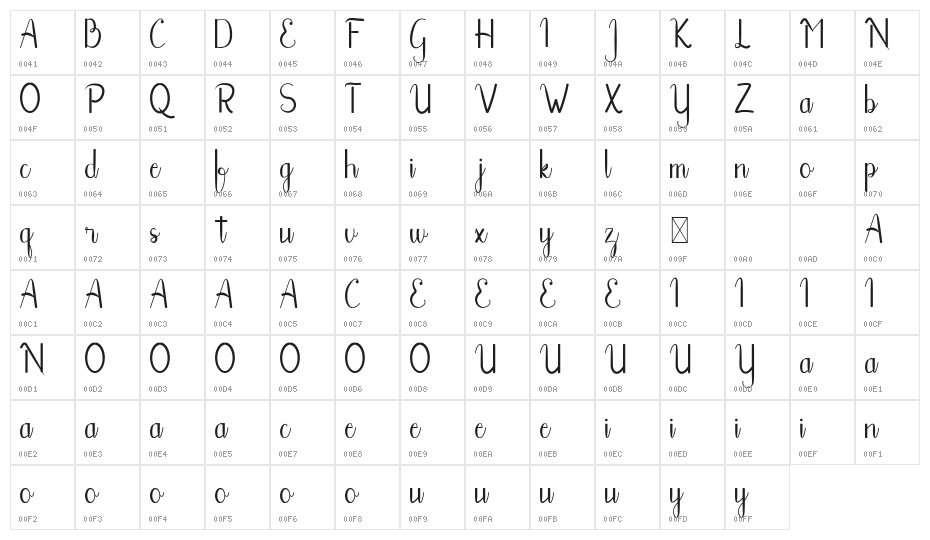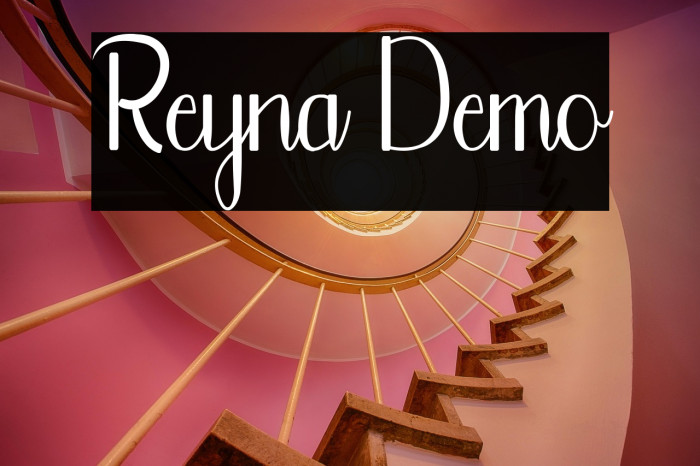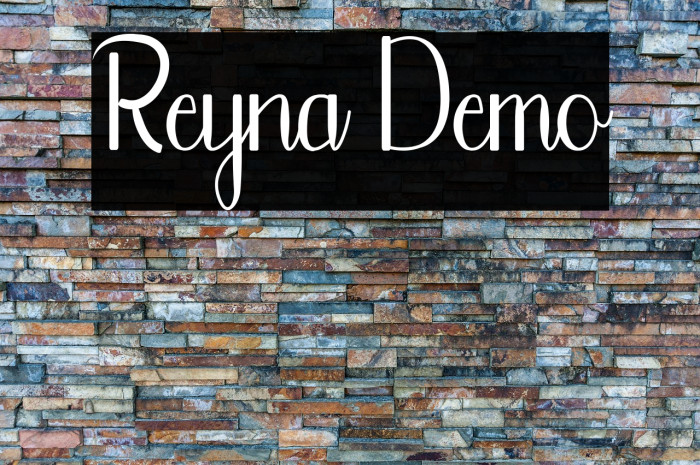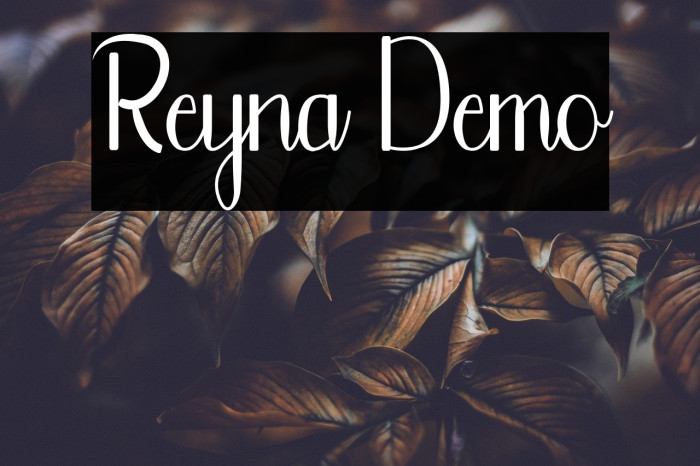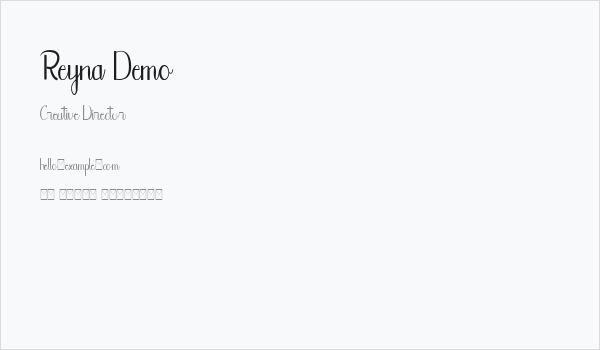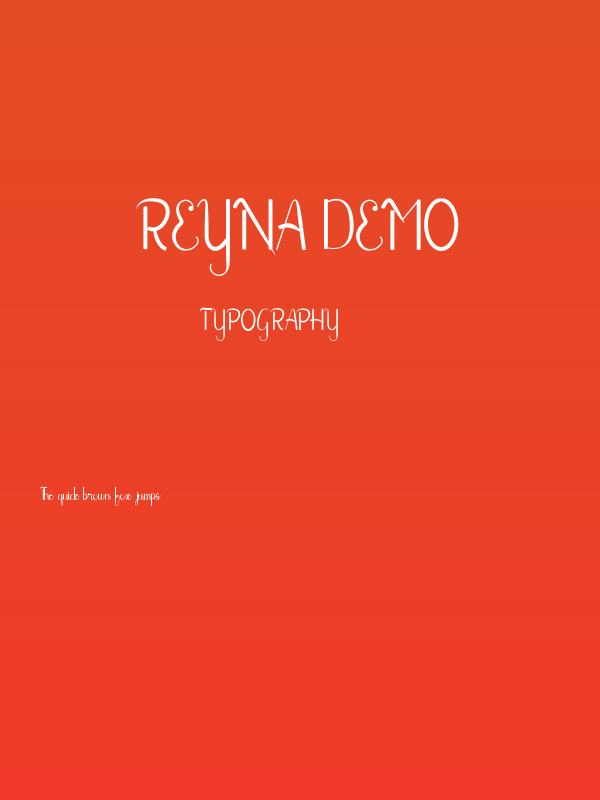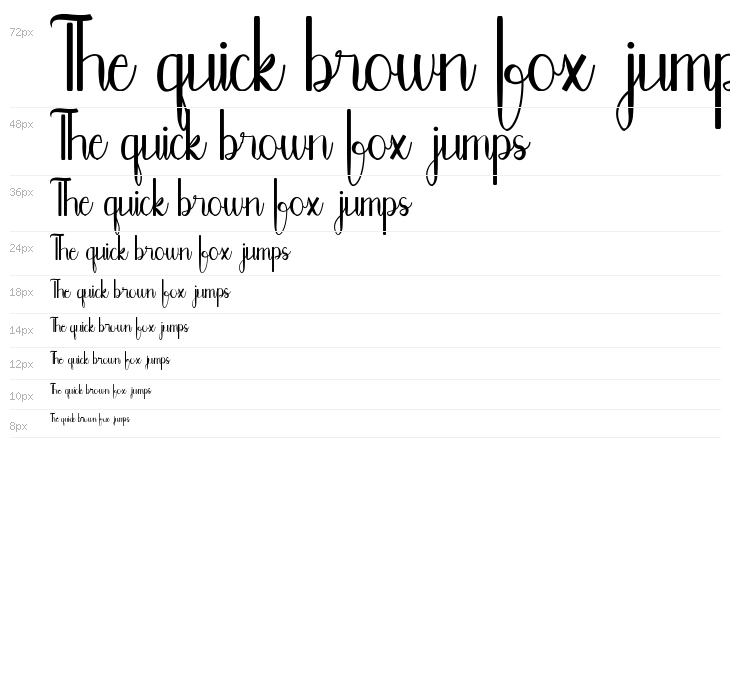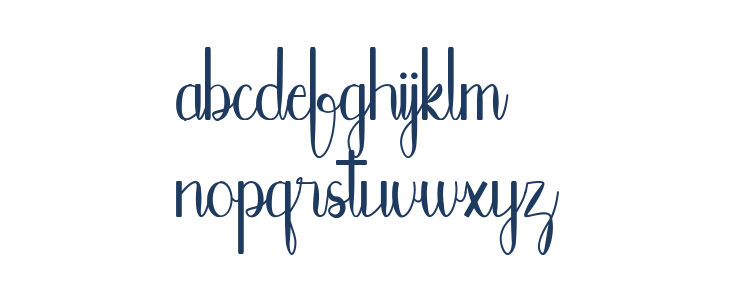
Reyna Demo Font
Reyna Demo Description
This font features a unique blend of elegance and playfulness, characterized by its flowing script style and distinct letterforms. The uppercase letters exhibit a tall, slender appearance with gentle curves, while the lowercase letters maintain a consistent flow with a slightly more whimsical touch. The strokes are smooth and fluid, creating a sense of movement and grace. The font's overall design is both sophisticated and approachable, making it suitable for a variety of creative applications. Its distinctive style is ideal for projects that require a personal and artistic touch.